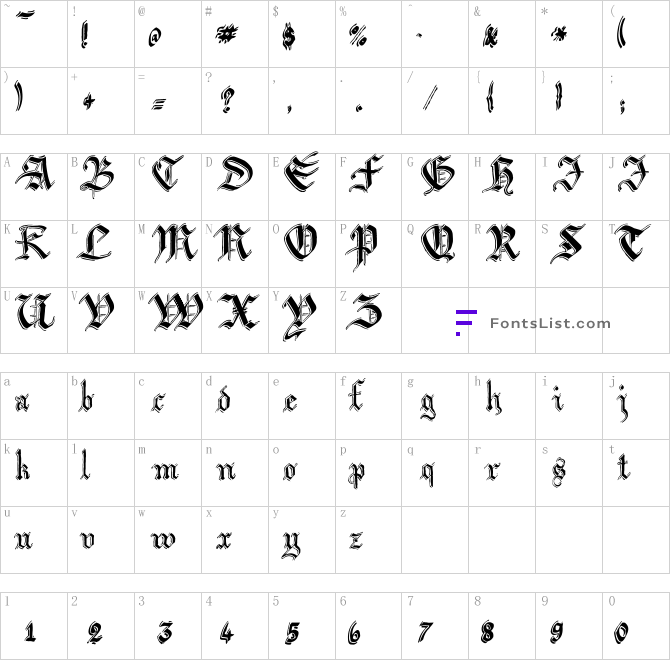
- Font Name:Argor Biw Scaqh
Argor-Biw-Scaqh.ttf is a very beautiful artistic font, Argor-Biw-Scaqh.ttf is widely used in the design and printing of various books and pictures,Argor-Biw-Scaqh.ttf has a strong visual impact,Argor-Biw-Scaqh.ttf is a commonly used font in newspapers, magazines and books, and is used in posters, e-commerce Poster design, store design, logo design, font design and other fields.Argor-Biw-Scaqh.